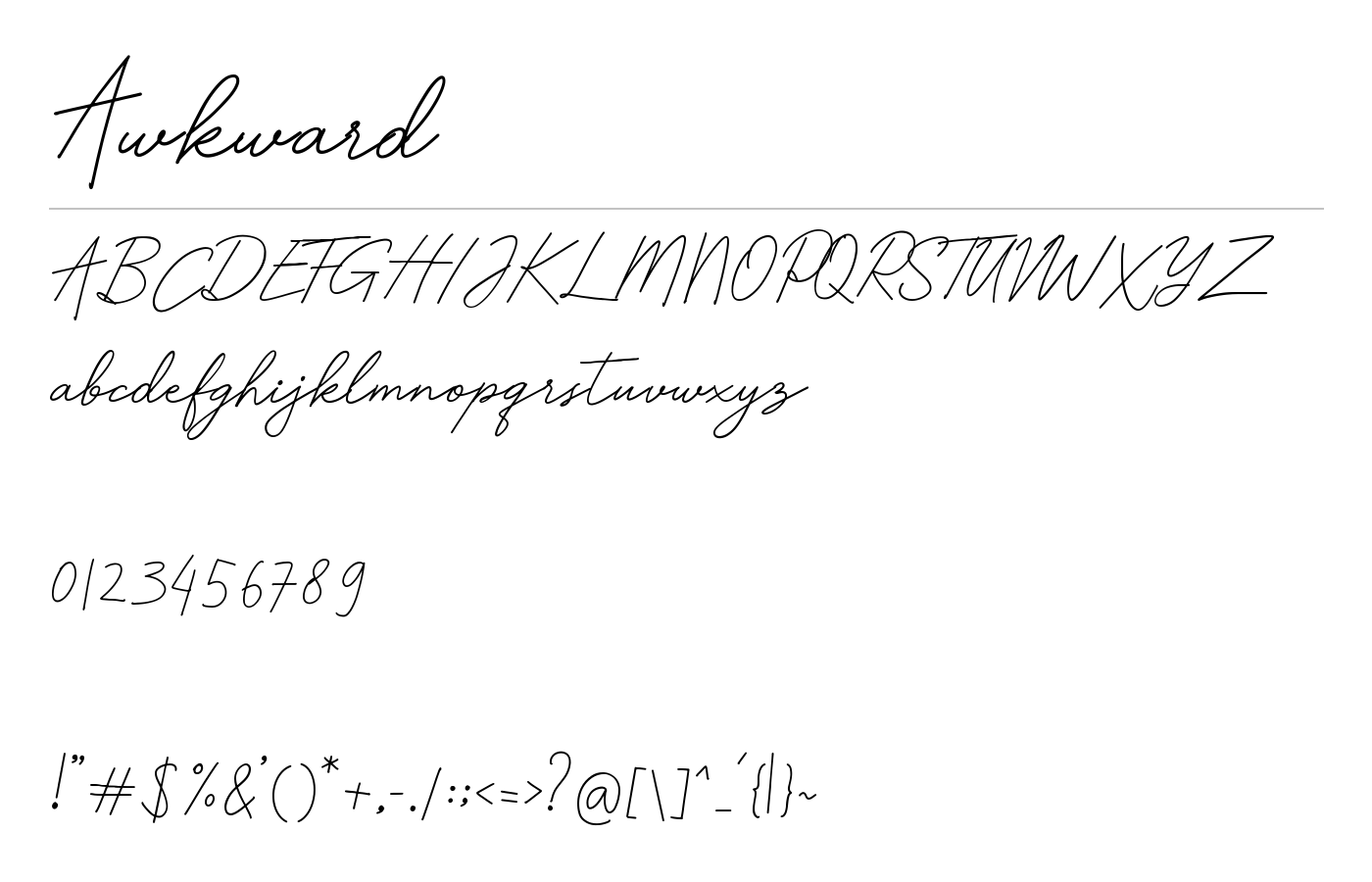
Awkward Font is a delicate, handwritten script with a thin, airy stroke that gives it an informal yet artistic feel. Its lightly slanted, slightly irregular letterforms create a casual, personal touch ideal for creative and quirky branding or invitations. This font works well where a natural, expressive style is desired without overwhelming the design, such as in greeting cards, personal logos, or stylish editorial accents.
Awkward Font
About Awkward Font